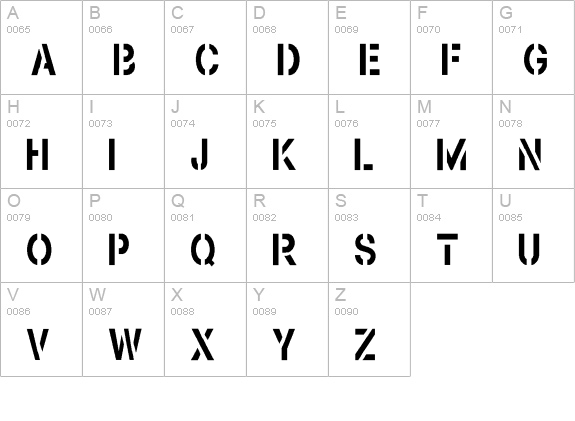
Browning Font Details
Introducing Browning Font, a captivating typeface that embodies elegance and sophistication. With its sleek and modern design, Browning exudes an air of effortless grace that is sure to leave a lasting impression. Featuring clean lines and a timeless appeal, Browning Font effortlessly combines classic and contemporary elements to create a truly versatile typeface. Its refined letterforms and balanced proportions make it perfect for a wide range of design projects, from branding and packaging to editorial work and signage. But what sets Browning Font apart is its incredible versatility and accessibility. It is freely available to download at FontsMarket.com, allowing designers and creatives from all walks of life to access this remarkable font without any cost. Whether you are a professional graphic designer or a hobbyist looking to add a touch of sophistication to your work, Browning Font is the perfect choice. Its wide range of weights and styles, including regular, bold, and italic, provides endless possibilities for creating stunning typographic compositions. With Browning Font, you can effortlessly elevate your designs and take them to new heights. Its timeless appeal, combined with its ease of use and availability, makes it a must-have for any design enthusiast. So don't miss out on this extraordinary typeface - download Browning Font for free at FontsMarket.com and let your creativity soar.